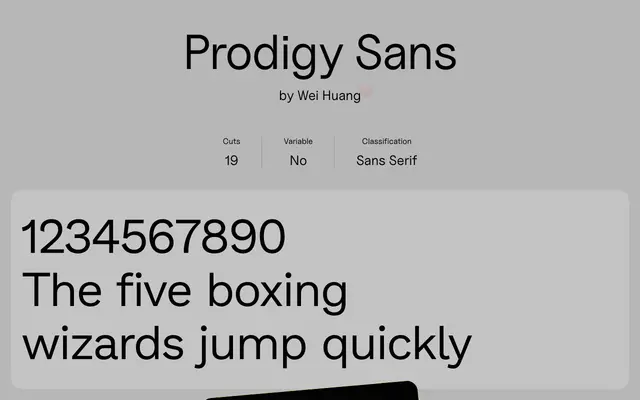
Prodigy Sans
Designed by Wei Huang, Prodigy Sans spans 19 cuts and is available at no cost under the SIL Open Font Licence 1.1, permitting commercial use, modification and redistribution. The licence imposes additional conditions when redistributing modified versions, so users should consult the full terms. It sits alongside other free grotesque offerings as a functional workhorse option for projects where budget is a constraint.
Listed under Sans Serif classification on the page; the name and general grotesque conventions suggest a straightforward sans-serif in the grotesque tradition.